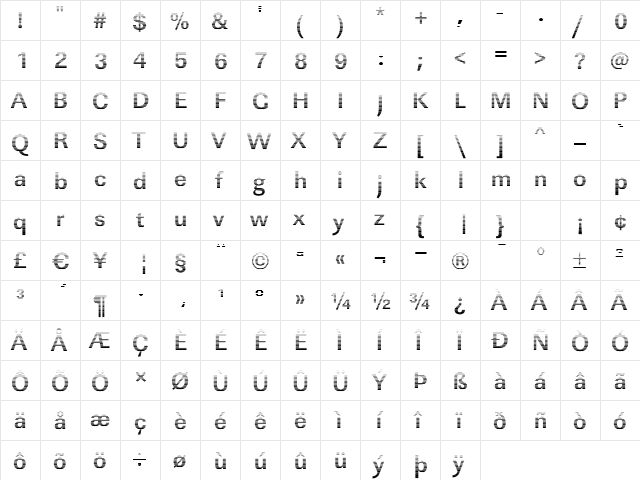
JeffBeckerGradient Bold
Design Context for JeffBeckerGradient Typeface
JeffBeckerGradient takes a measured approach to typography — its balanced proportions and neutral character make it a reliable workhorse for both digital and print work. The heavy weight commands attention and anchors typographic hierarchies.